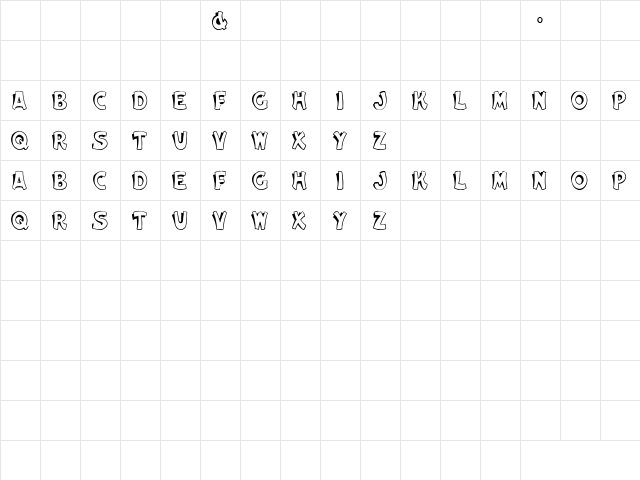
Cartoon Slant 4 Regular
Design Context for Cartoon Slant 4 Typeface
Cartoon Slant 4 has an approachable, lighthearted character — its loose, expressive forms are well-suited to children's content, casual branding, and fun-first design.
Font Pairing: Pairs well with a rounded or humanist sans for body copy, maintaining the friendly tone without relying on Cartoon Slant 4 to carry extended reading.
Pro Tip: Use Cartoon Slant 4 at larger display sizes where its expressive character can land. Pair with a clean, simple sans for body copy to maintain readability.